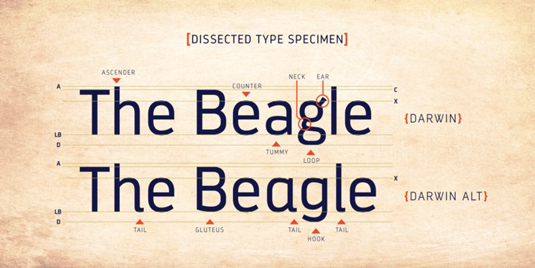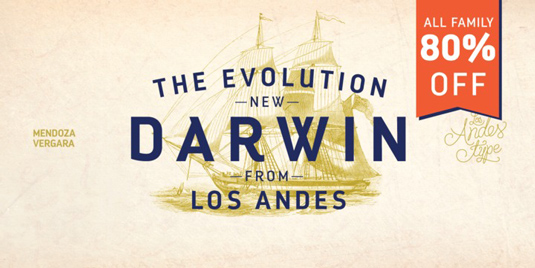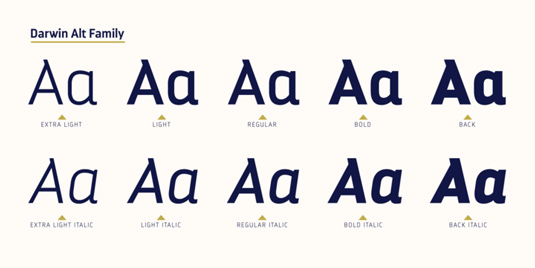
Font of the day: Darwin
Darwin by Mendoza Vergara
Today's font design of choice, Darwin, was created by Chile-based type designer Mendoza Vergara. Available from MyFonts, it's described as 'an eclectic assembly of grotesque, geometric and humanistic styles, which includes 20 fonts and is good for headlines, little text, posters and logos'.